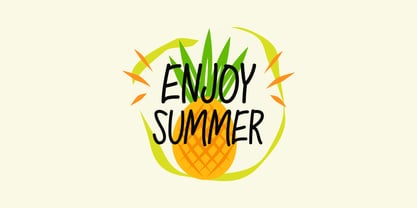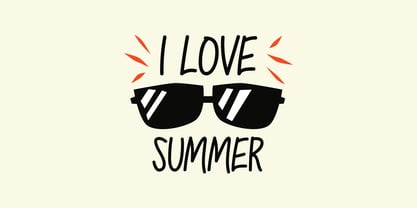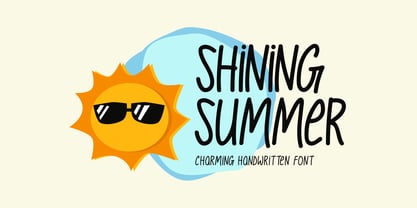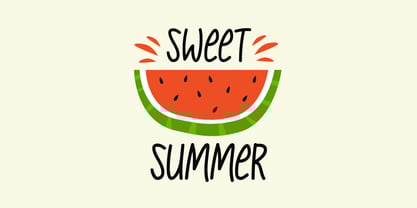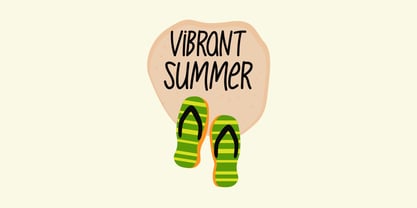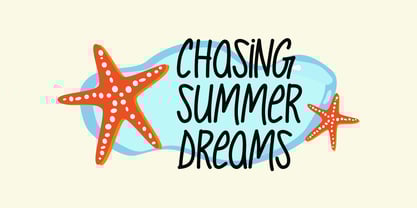
Shining Summer
by Seemly Fonts
The Shining Summer Font Family was designed by Md Shohail Bhuian and published by Seemly Fonts. Shining Summer contains 1 styles.
A beautifully designed handwritten font that embodies spontaneity and fun is Shining Summer. It is a fantastic option for branding, clothing, and ornamental print materials because of its delicate, flowing lines. This typeface provides a casual yet fashionable touch to any design, whether it's for sophisticated stationery, striking posters, or captivating social media material. With its organic and welcoming charm, Shining Summer subtly elevates any creative work, making it ideal for posters, music covers, website headers, and more.
Designers: Md Shohail Bhuian
Publisher: Seemly Fonts
Foundry: Seemly Fonts